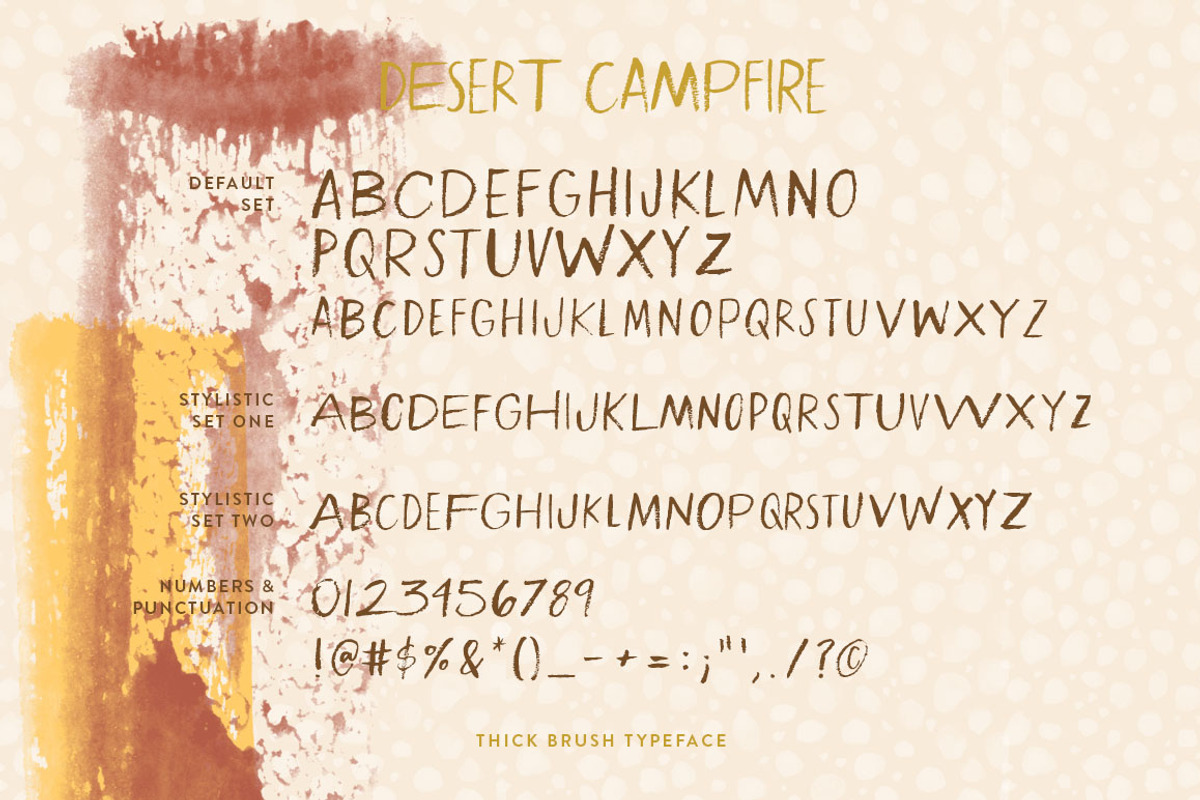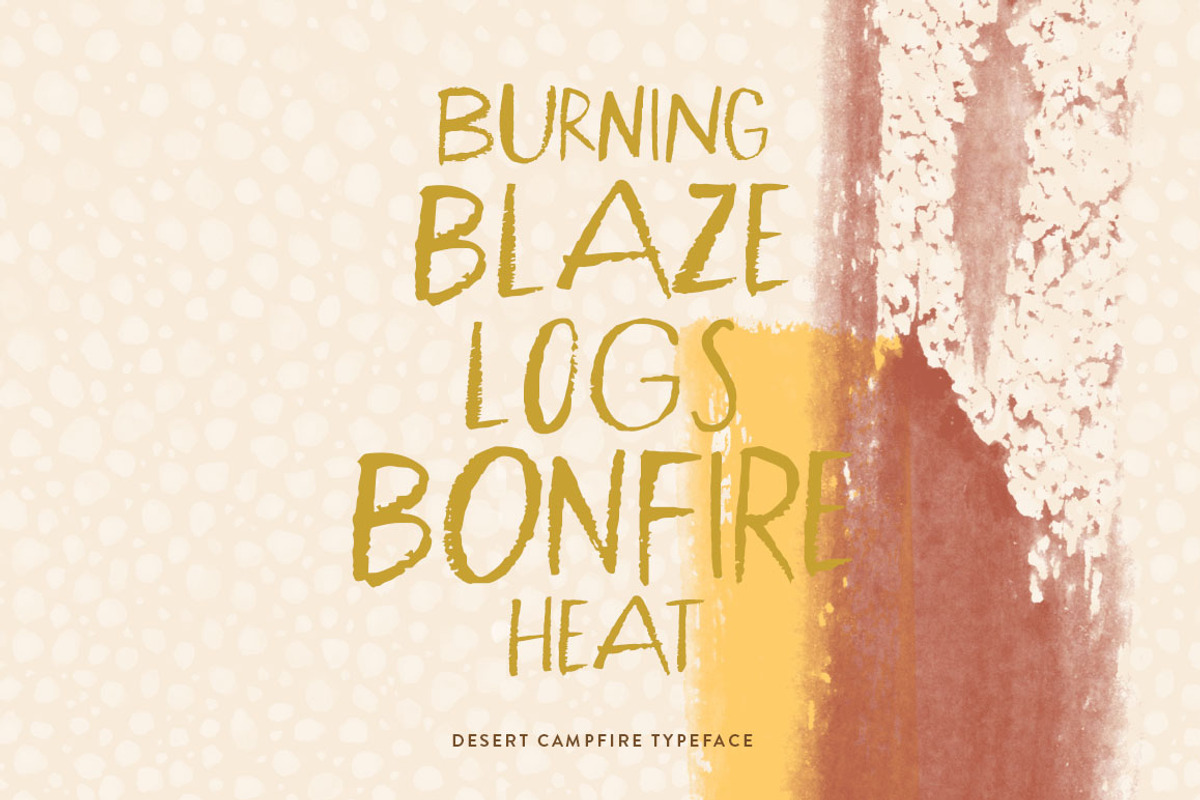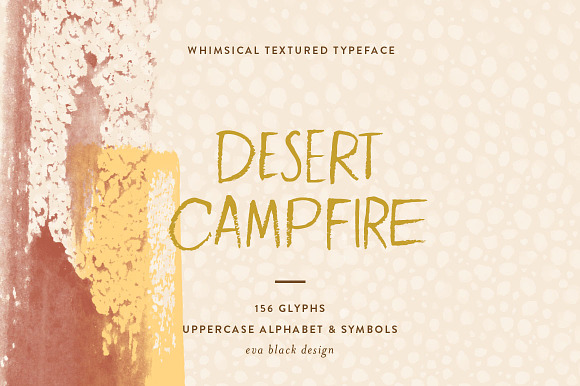
Desert Campfire Font
Thin textured brush font. With added variety of letter styles and character widths for a whimsical take on a sketchy typeface.
Ink & Brush Pen Uppercase Lettering Style.
Perfect for logos, invites, photo overlays, etc.
Default Character Set A-Z, a-z.
Numbers & Punctuations.
Contextual & Stylistic Alternates.
All characters are uppercase style, take advantage of swapping capital and lowercase letters for even more variation.